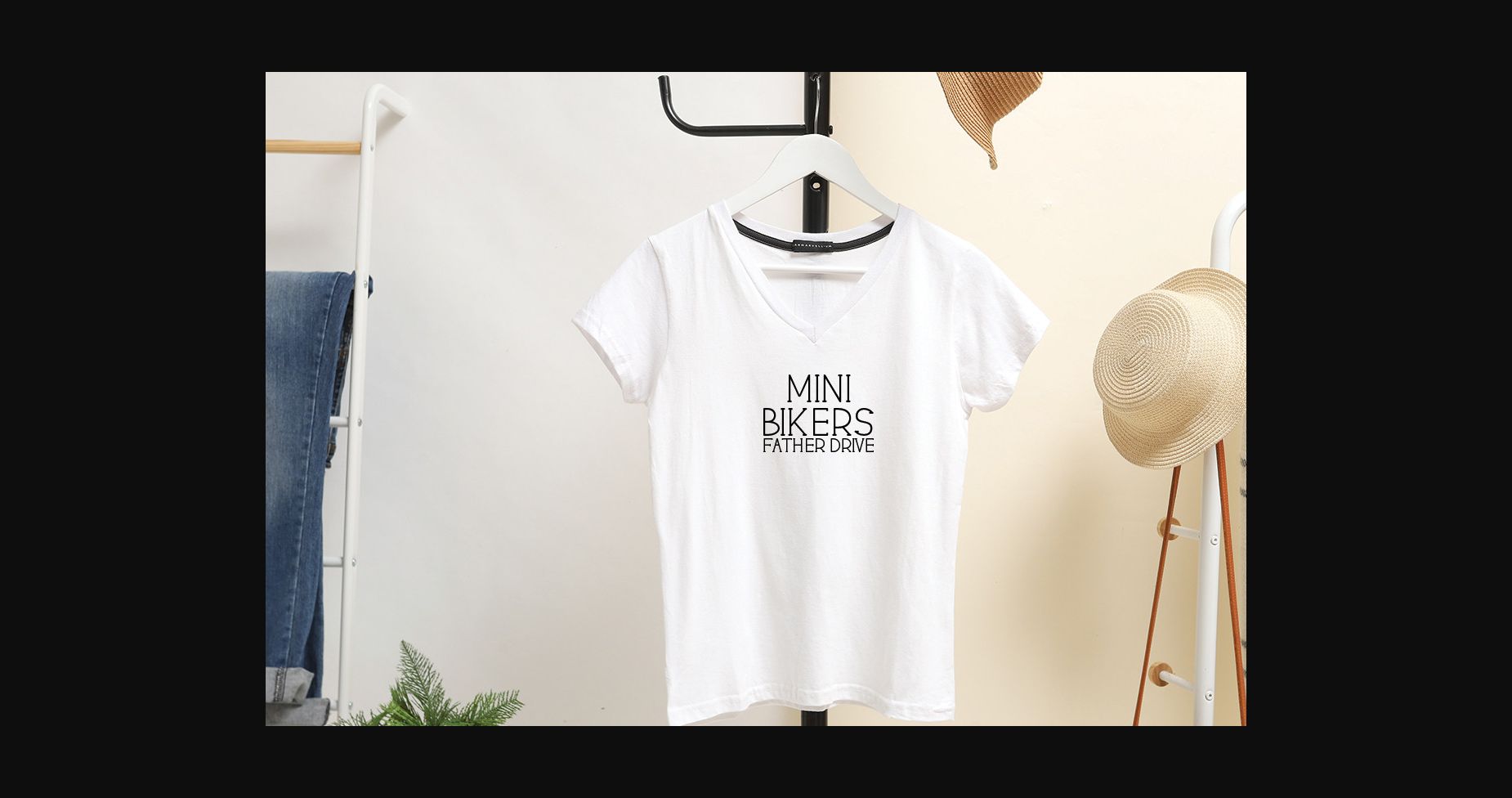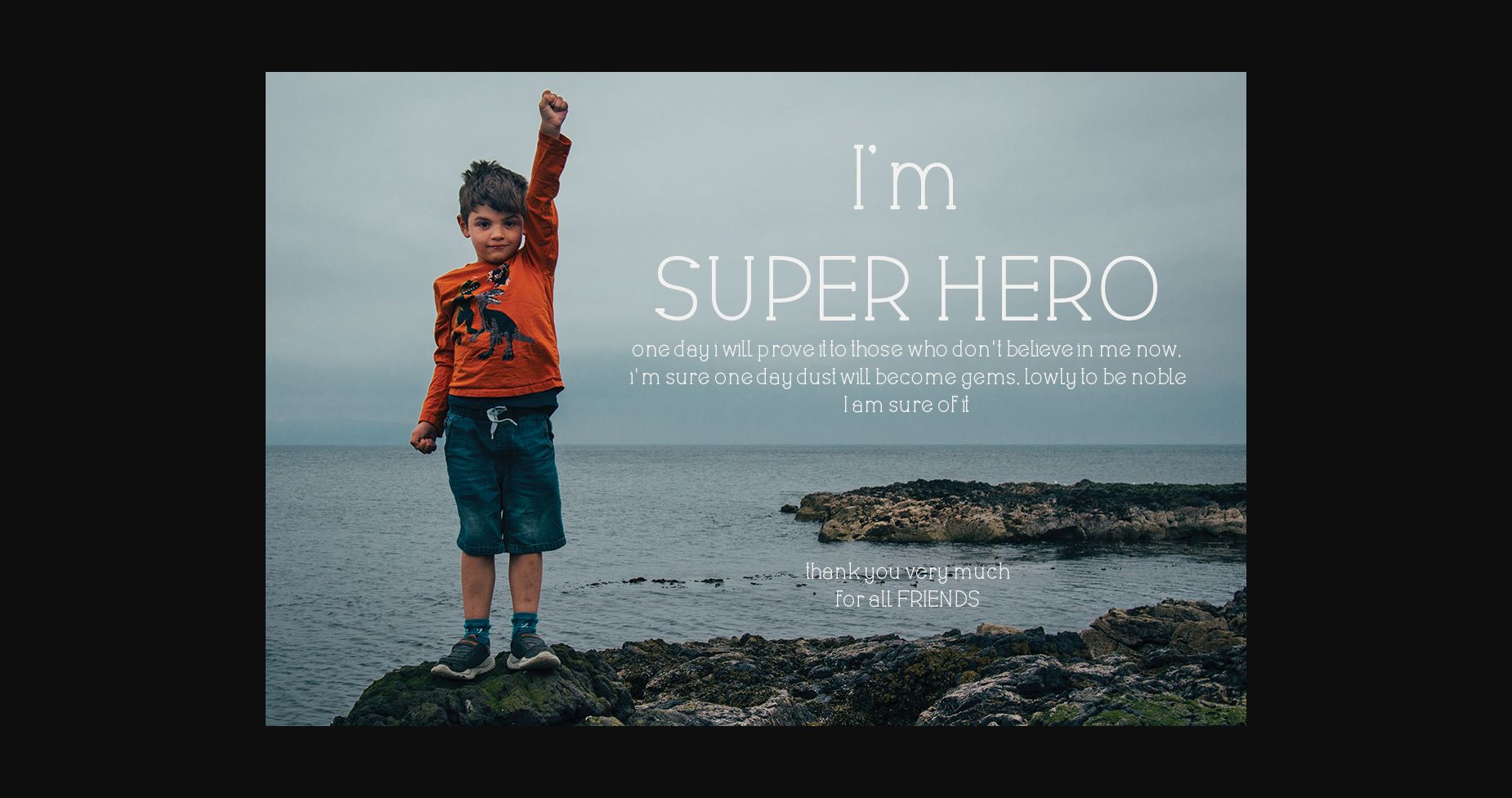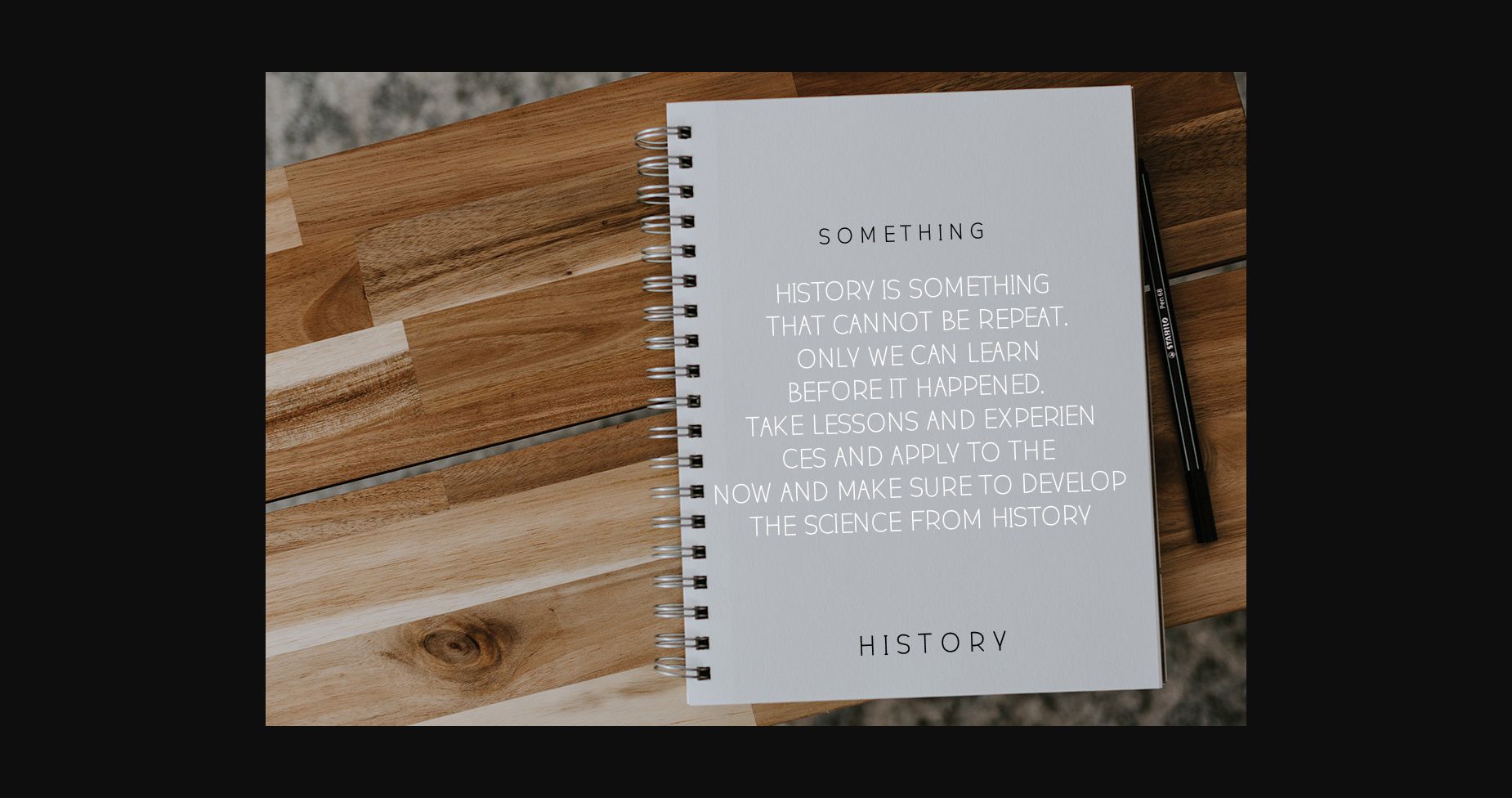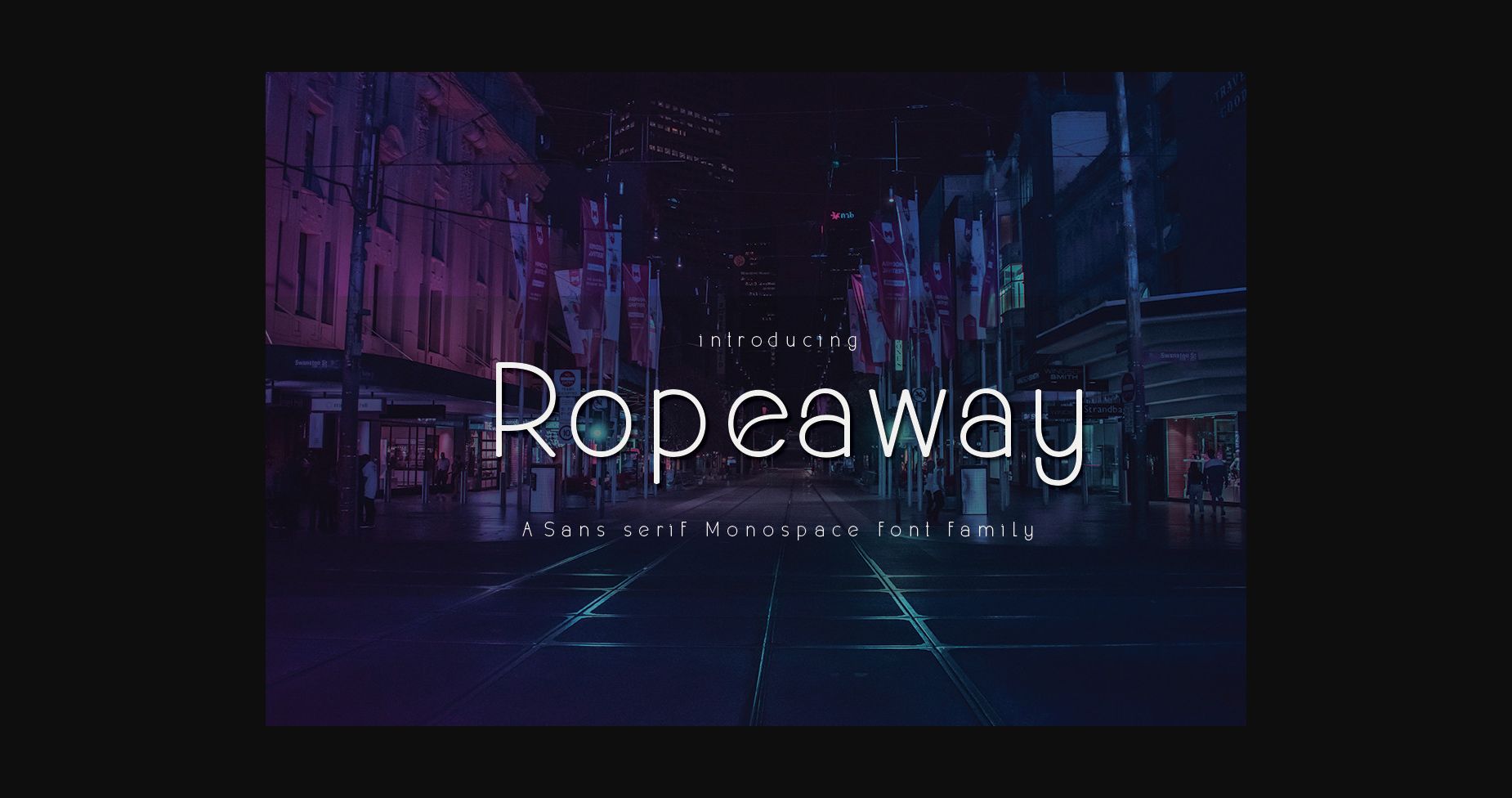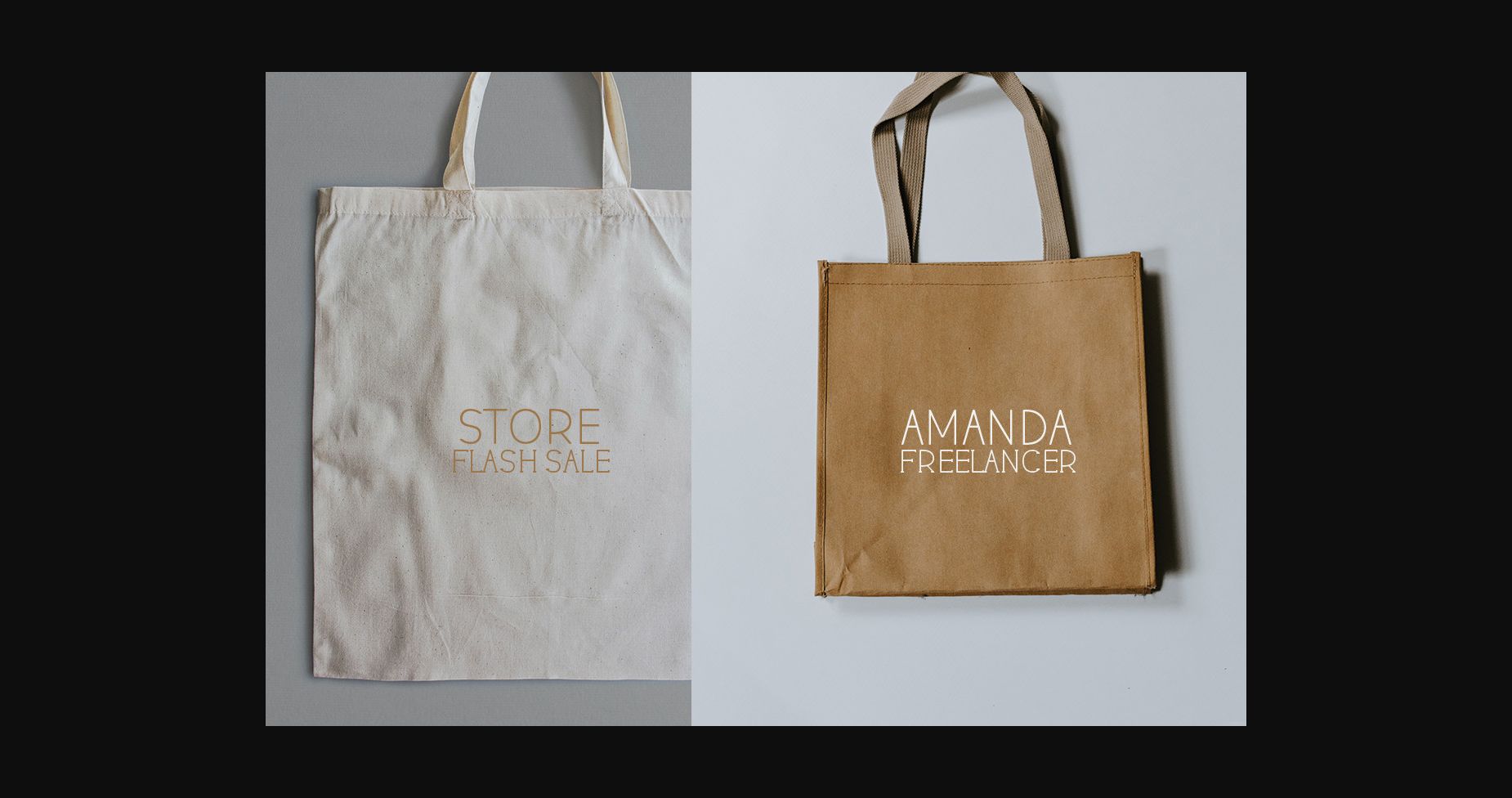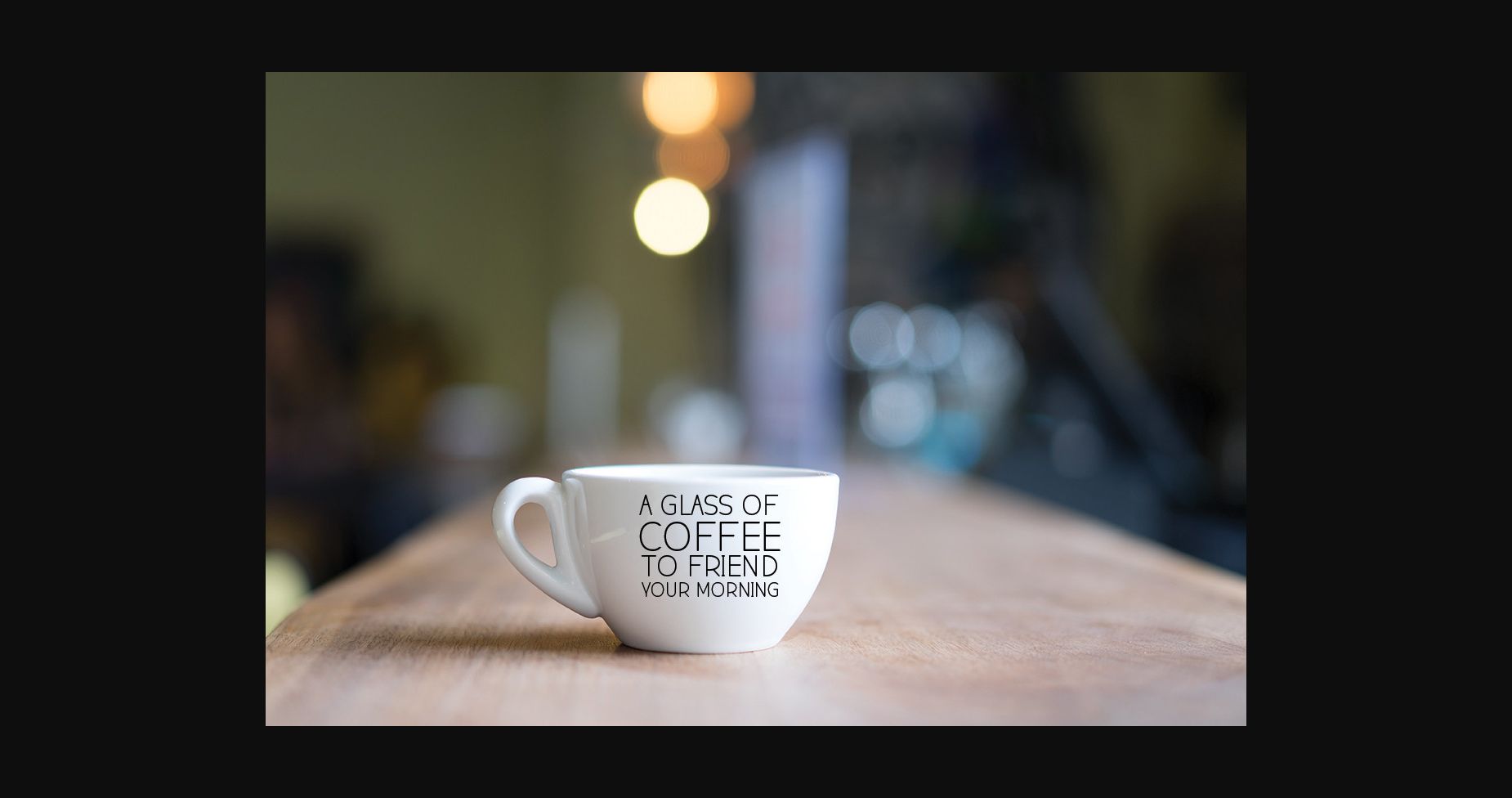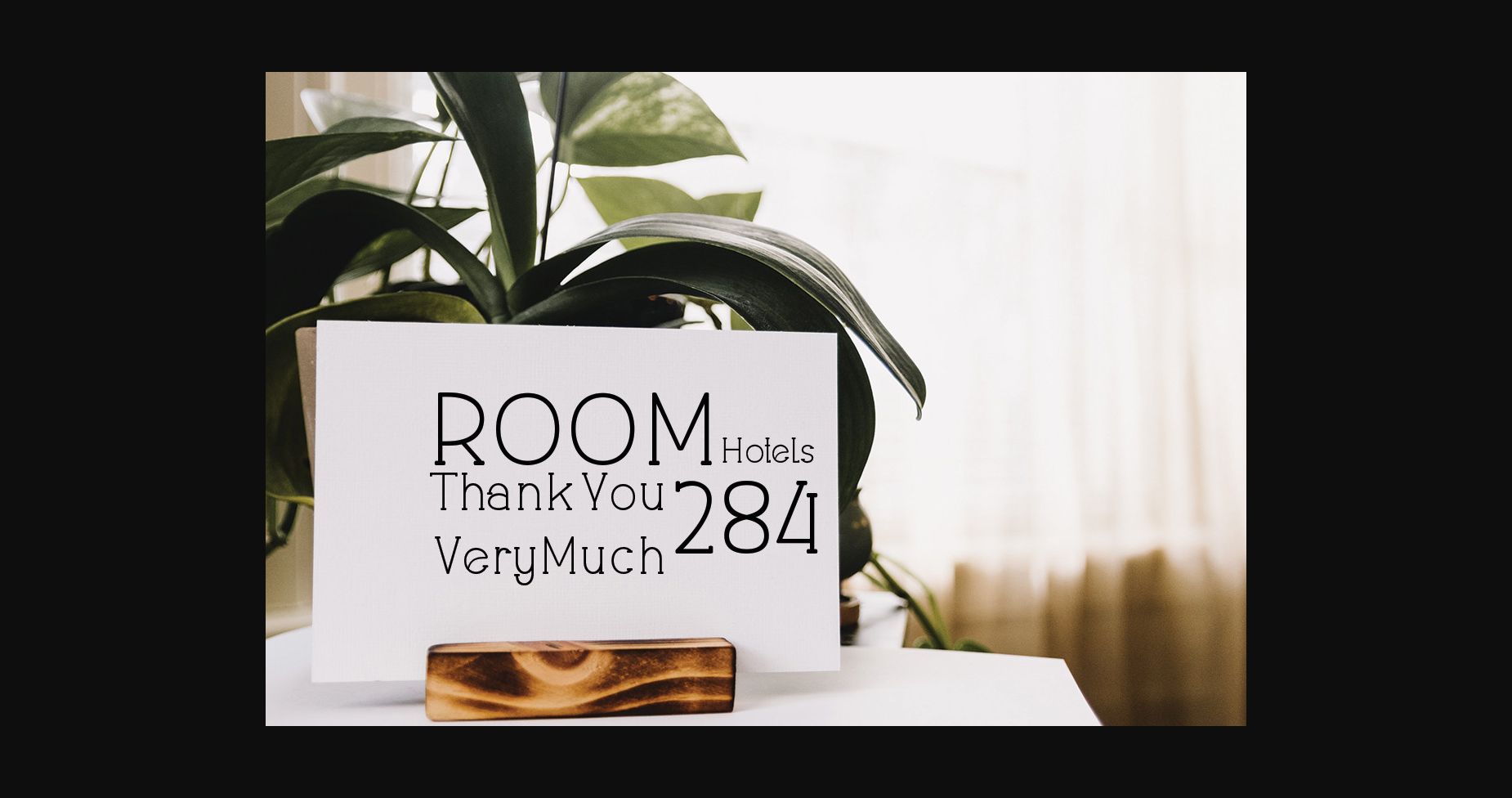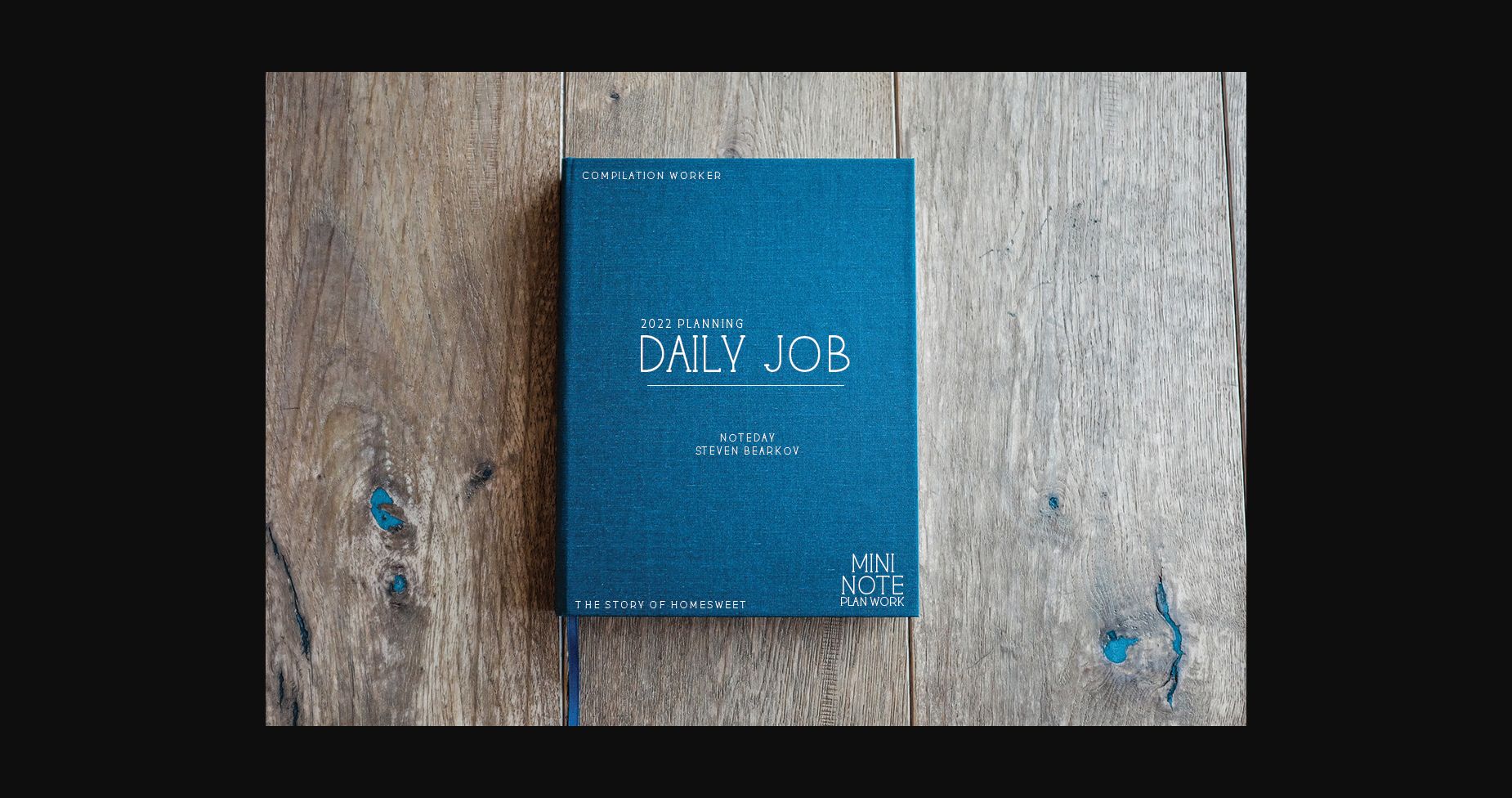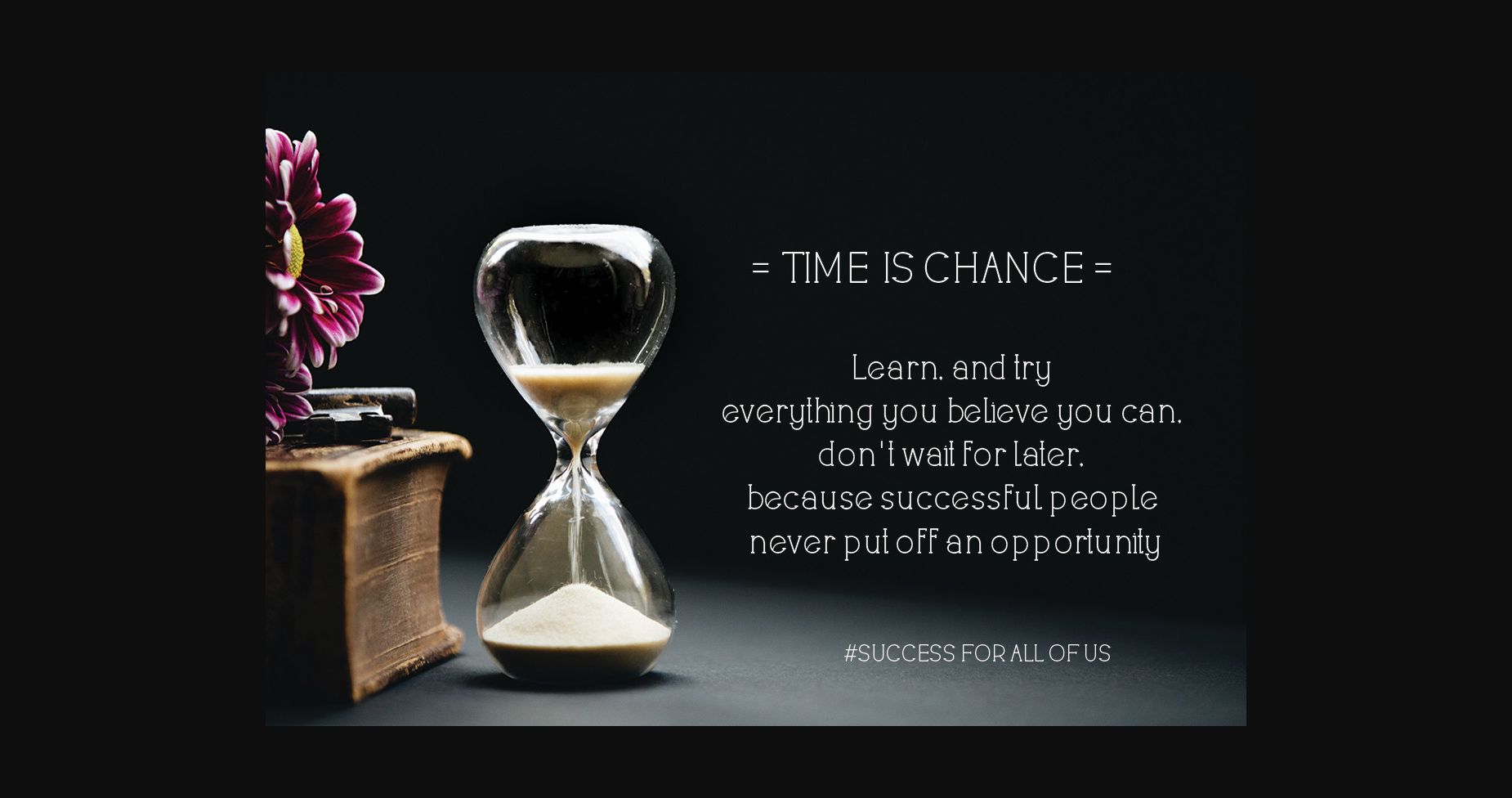
HomeSans Serif FontsRopeaway Font Sans Serif Fonts Ropeaway Font FacebookXPinterestWhatsApp 1 of 11 ... Ropeaway Font Poster 2... Ropeaway Font Poster 3... Ropeaway Font Poster 4... Ropeaway Font Poster 5... Ropeaway Font Poster 6... Ropeaway Font Poster 7... Ropeaway Font Poster 8... Ropeaway Font Poster 9... Ropeaway Font Poster 10... Ropeaway Font Poster 11... About Ropeaway Font Ropeaway is a thin lettered and simple sans serif font. No matter the topic, this font will be an incredible asset to your fonts’ library, as it has the potential to elevate any creation. DOWNLOAD NOW People also explored Monolord Font Antique Irish Green Gildan 5000 Mockup Snowy Moment Font Holiday Washington Font Arifany Font Misyela Font Rickey Font Runyone Font Radiance Font 334 0 TagsRopeaway Font Previous articleAnother FontNext articleGeorgea Font LEAVE A REPLY Cancel reply Comment: Please enter your comment! Name:* Please enter your name here Email:* You have entered an incorrect email address! Please enter your email address here Website: Save my name, email, and website in this browser for the next time I comment. Personal Use Free Crellia Script Personal Use Free Read more about this font Braindly Personal Use Free Read more about this font My Ugly Handwritting Personal Use Free Read more about this font Xplor Personal Use Free Read more about this font BLOG How to Cut Any Font on Cricut: Convert a Font to SVG (Free) Turn any font into a clean SVG so it cuts crisp on Cricut - a quick 3-step workflow using a free font-to-SVG tool. Where to Buy American Fonts Online in 2024 5 Fonts That Will Dominate Design Trends in 2026 Exploring Font Trends